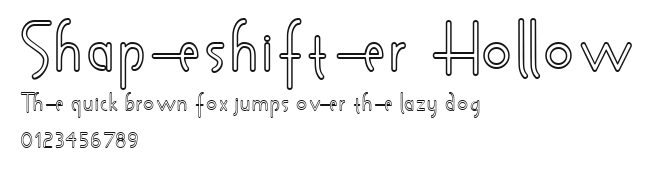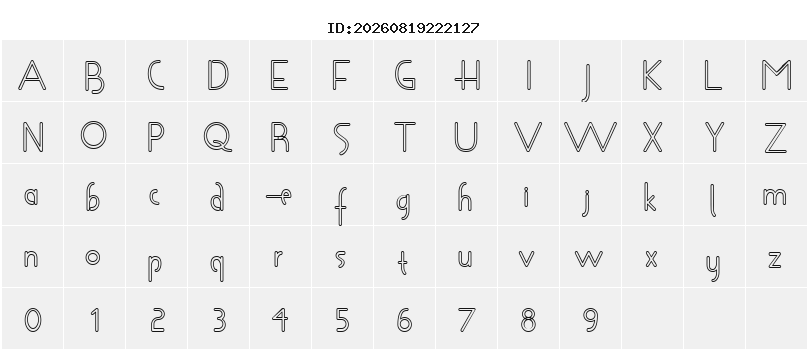
Shapeshifter Hollow Preview
• Font Name: Shapeshifter Hollow
• Full Font Name: Shapeshifter Hollow
About Shapeshifter Hollow.ttf
Shapeshifter Hollow.ttf is a modern, elegant sans-serif font designed for ultimate readability and visual harmony. Perfect for branding, headlines, web design, and print materials.